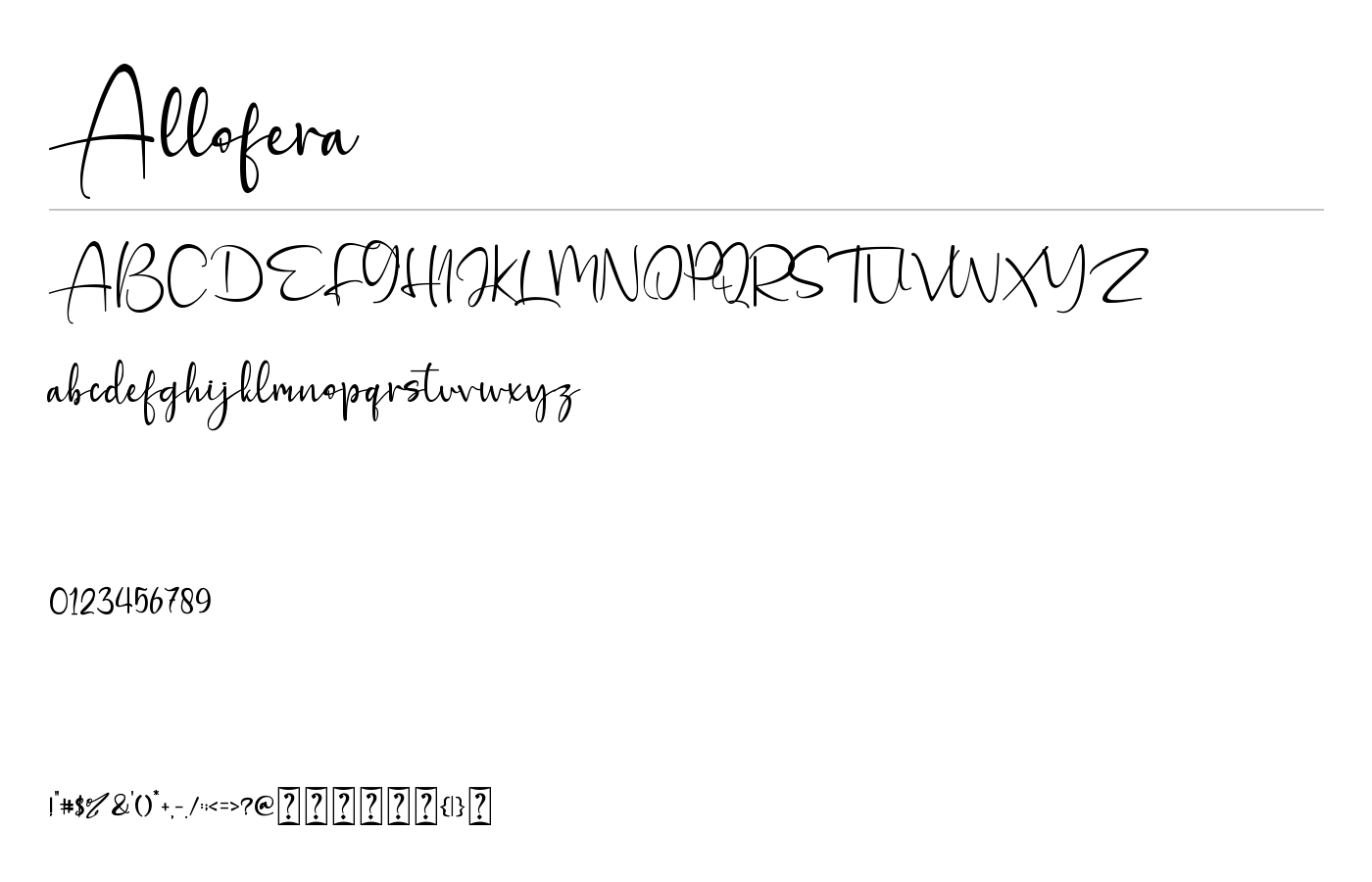
Allofera is a delicate handwritten script font characterized by its slender, fluid strokes and casual elegance. It features a natural, slightly irregular style with tall, narrow letterforms and high contrast between thin and slightly thicker lines, making it perfect for adding a personal, artistic touch to invitations, branding, and creative projects that seek a warm, approachable feel. This font works best in headlines, logos, and decorative text where its charming, handcrafted appearance can truly stand out.
Allofera Font
About Allofera Font